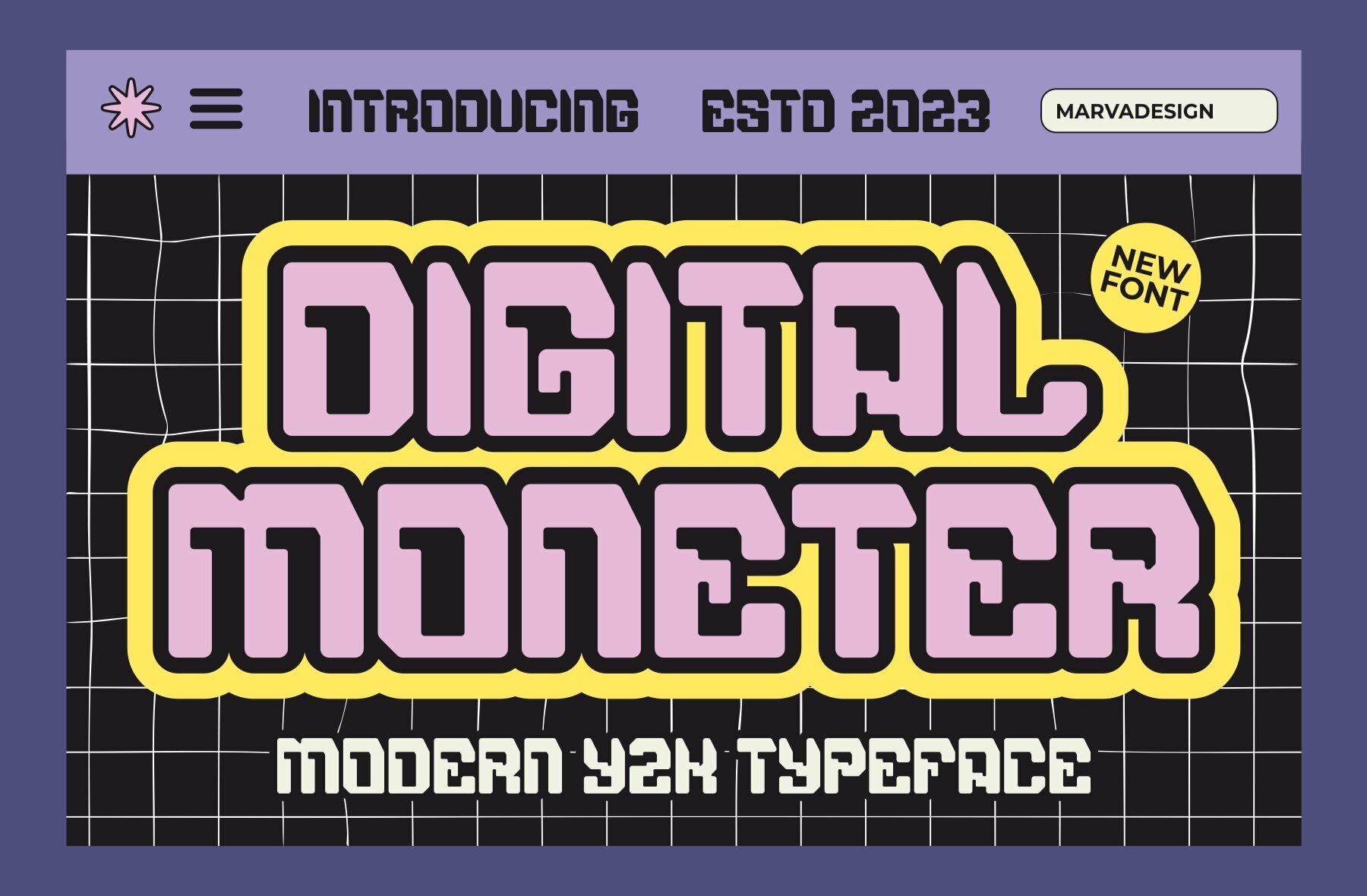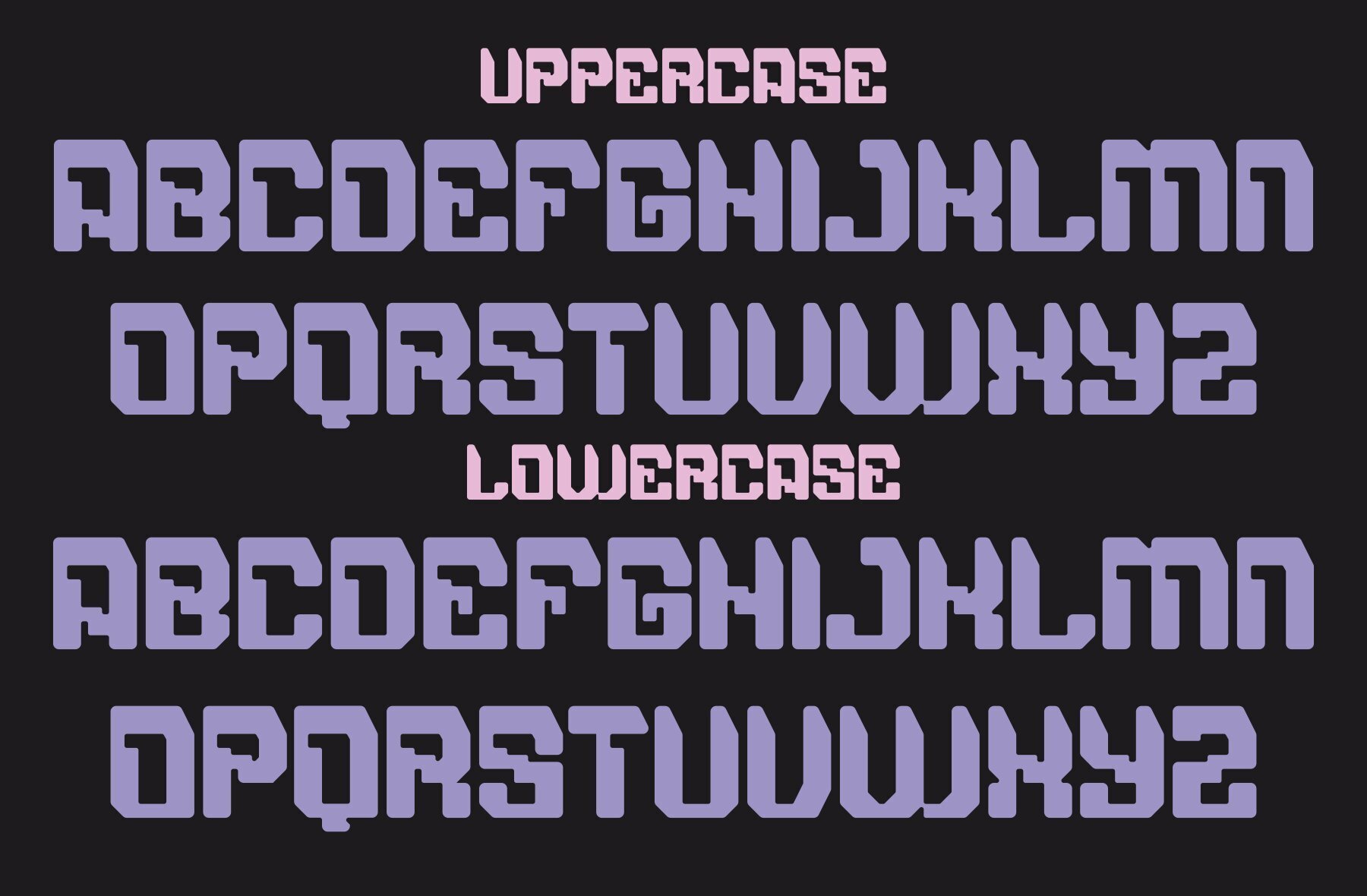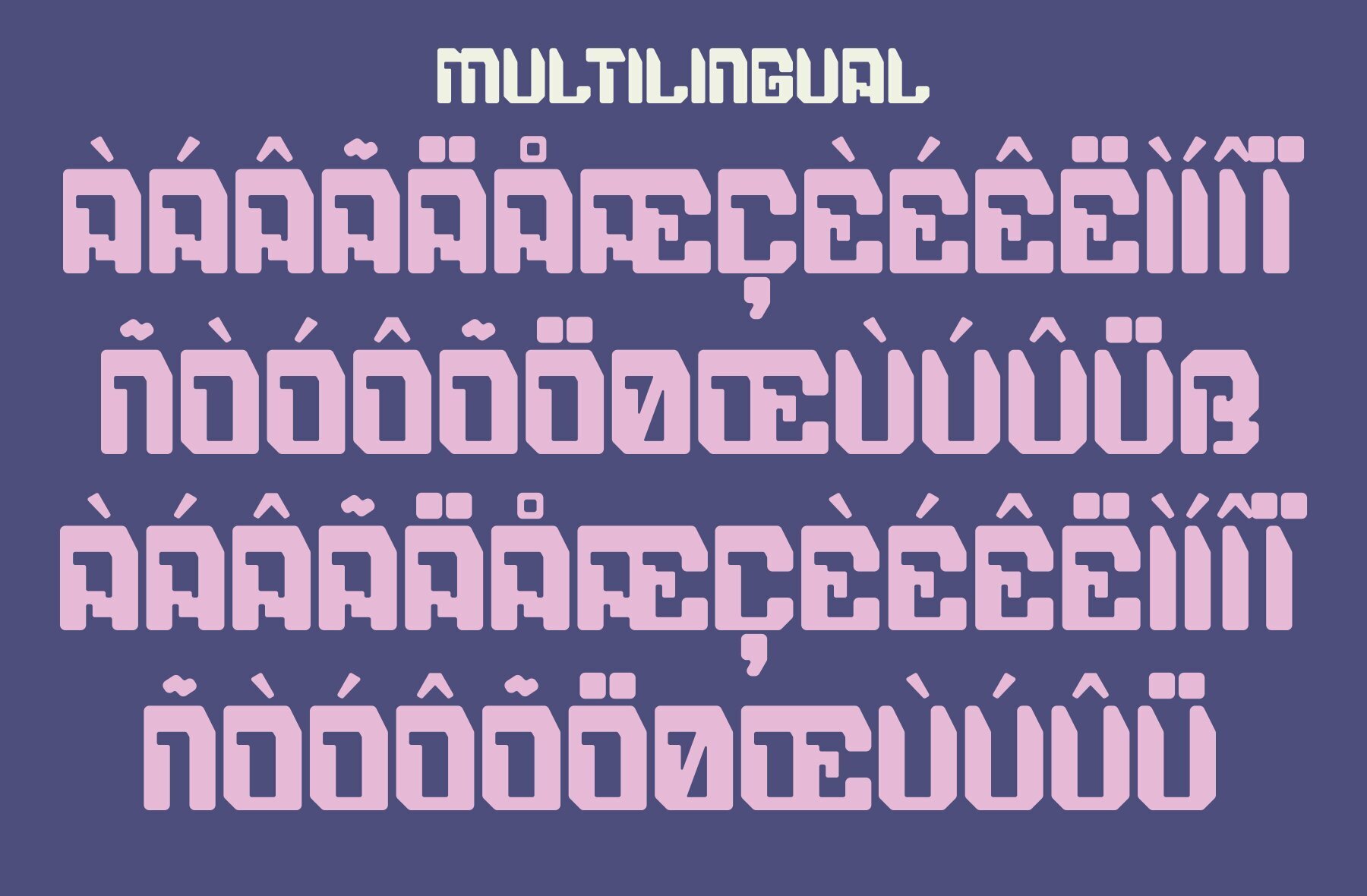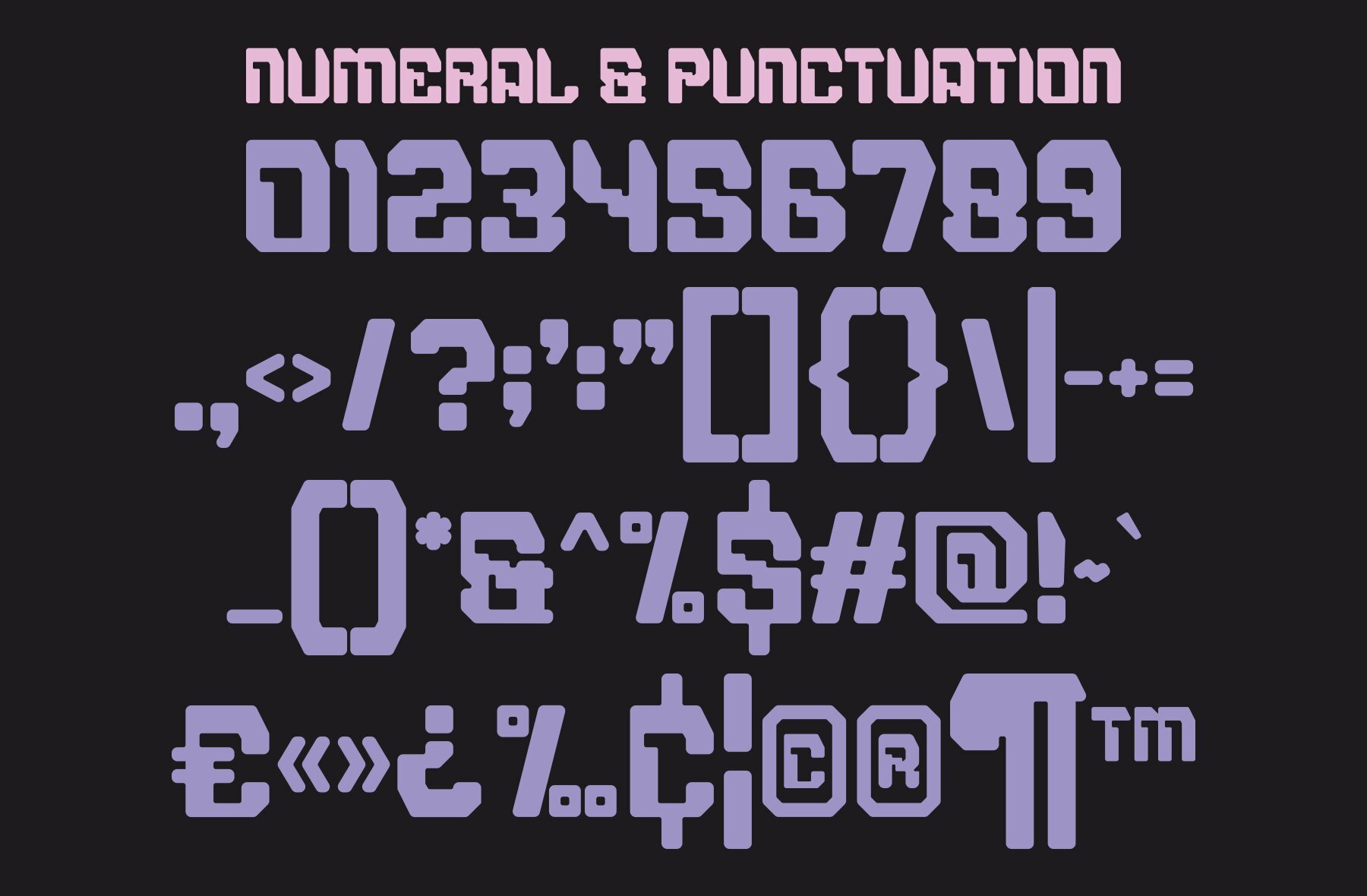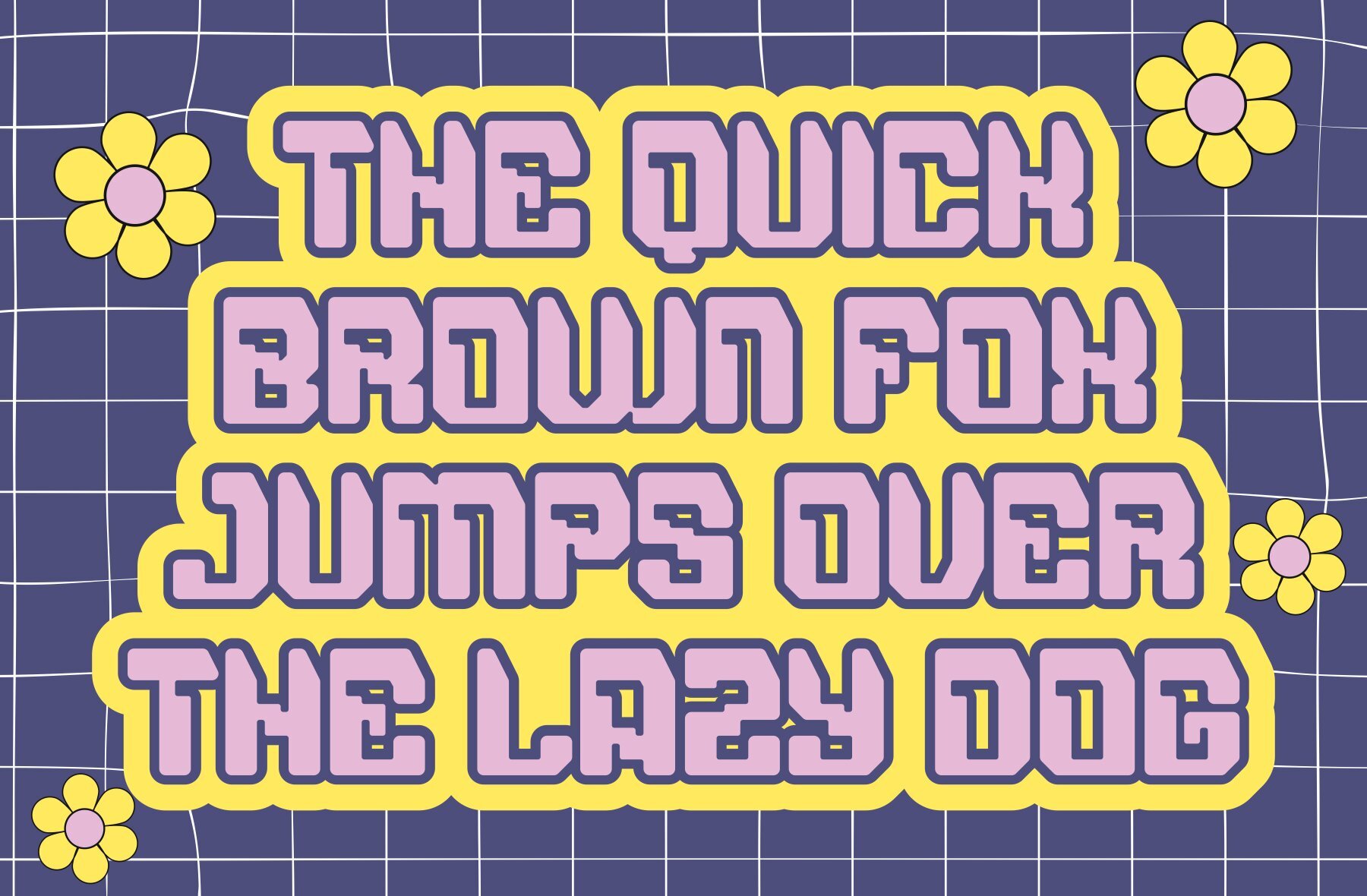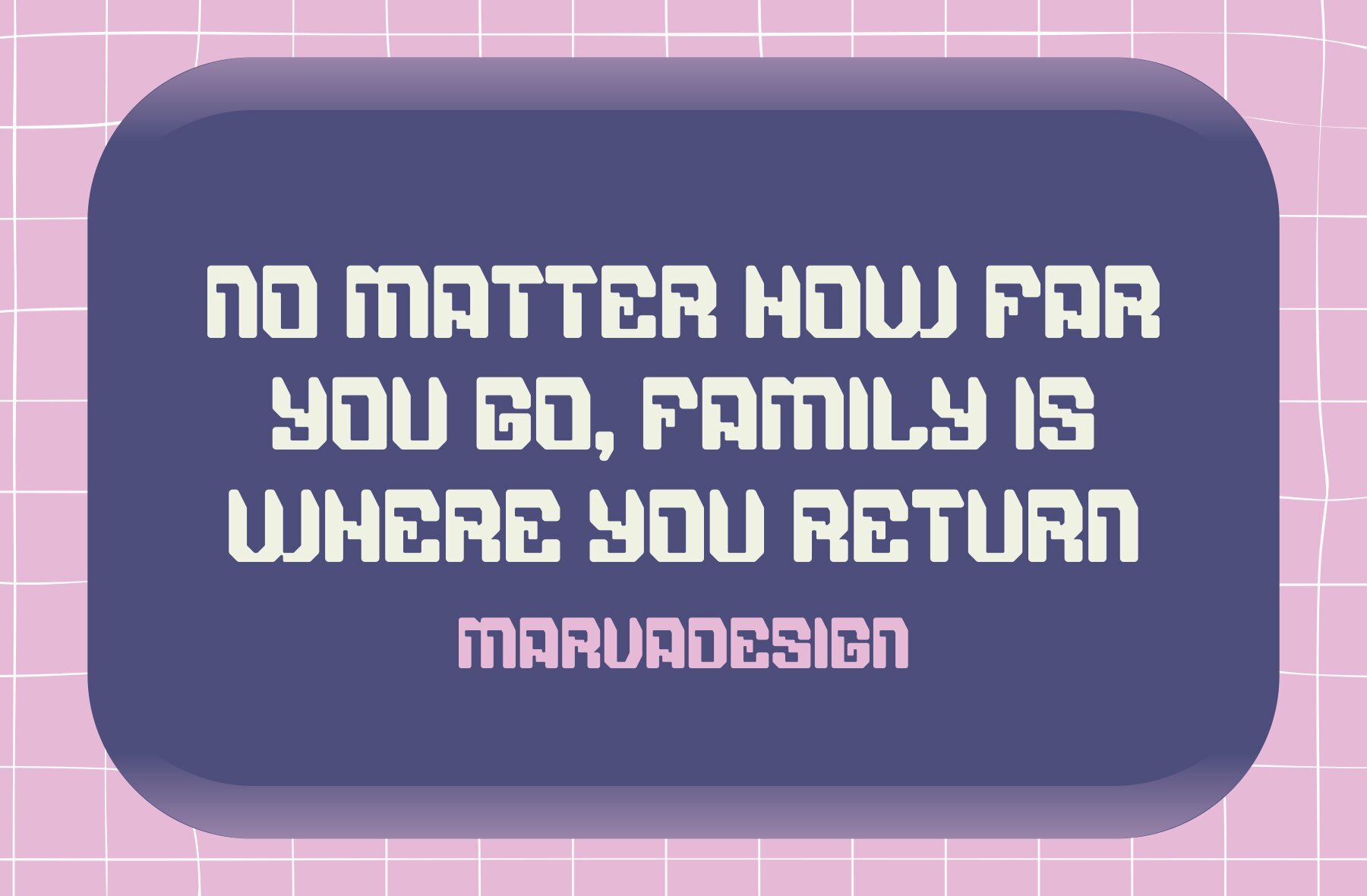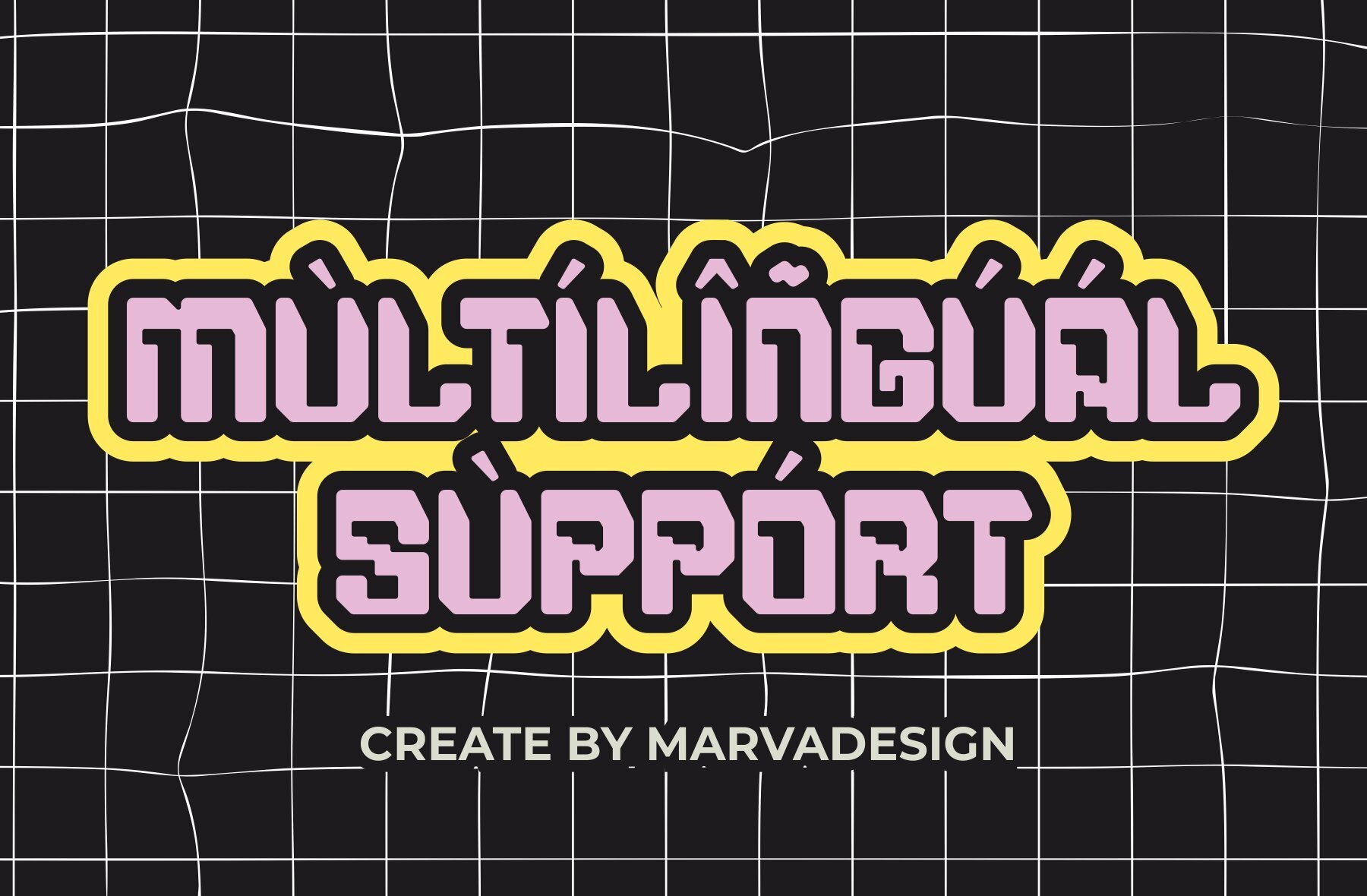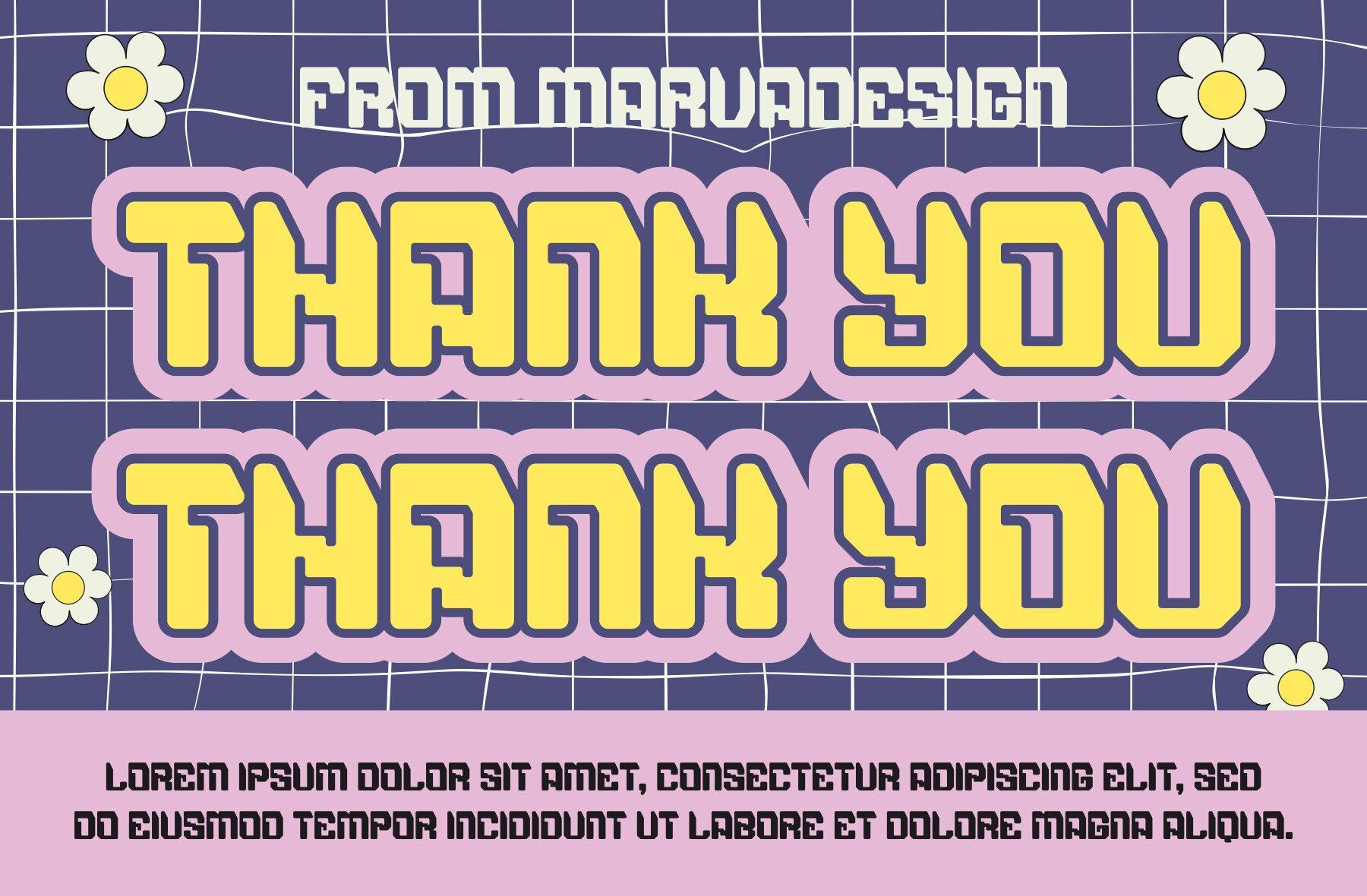
Digital Moneter Font
DIGITAL MONETER
Digital Moneter Font stands out as a modern, techno-inspired typeface, embodying the Y2K aesthetic. This authentic display font is ideal for various branding projects, including logos, templates, and product designs. Its distinct style makes it outstanding in a wide range of contexts.Digital Moneter: A Modern Techno Y2K Font